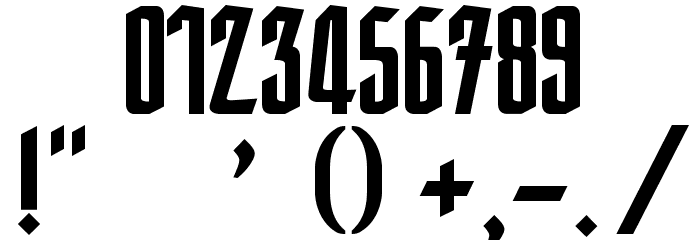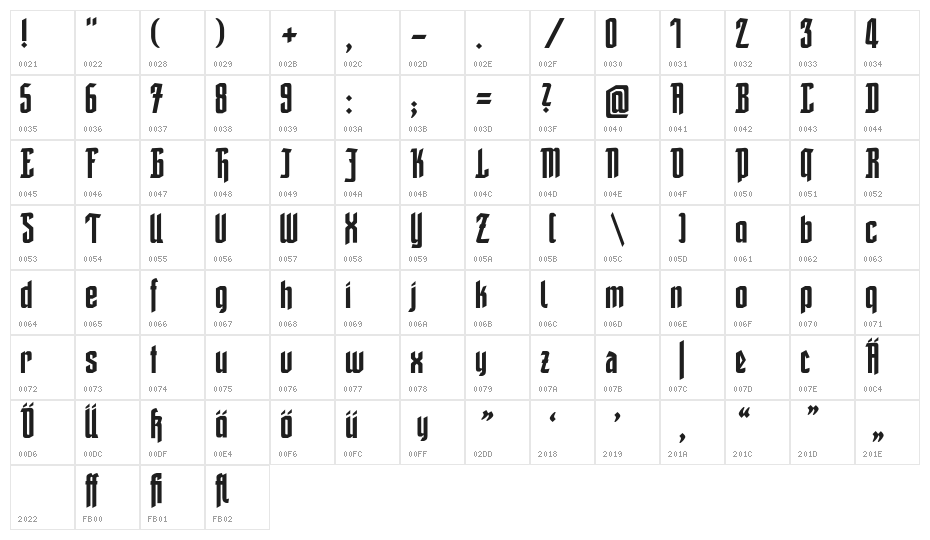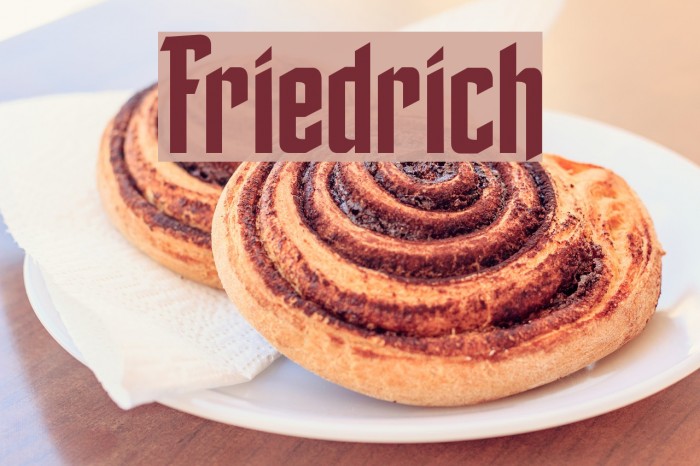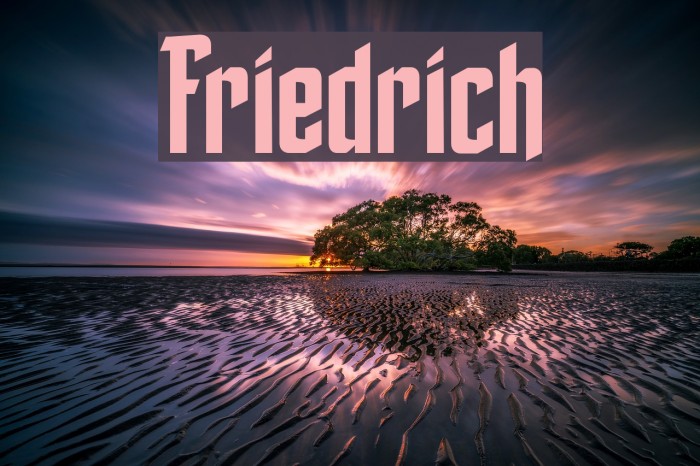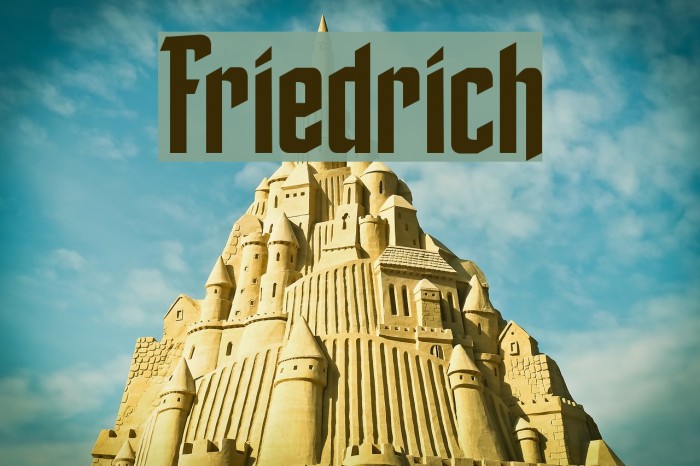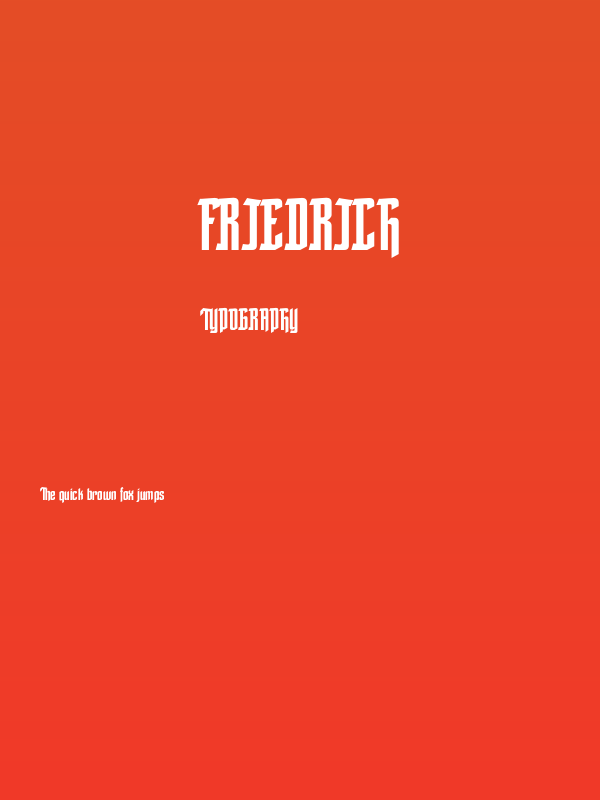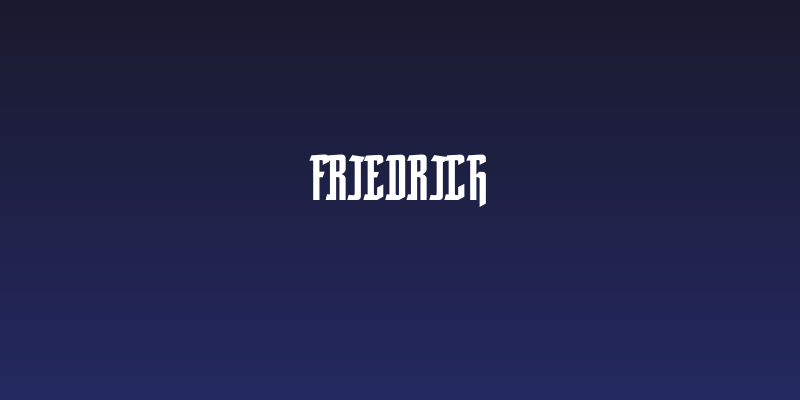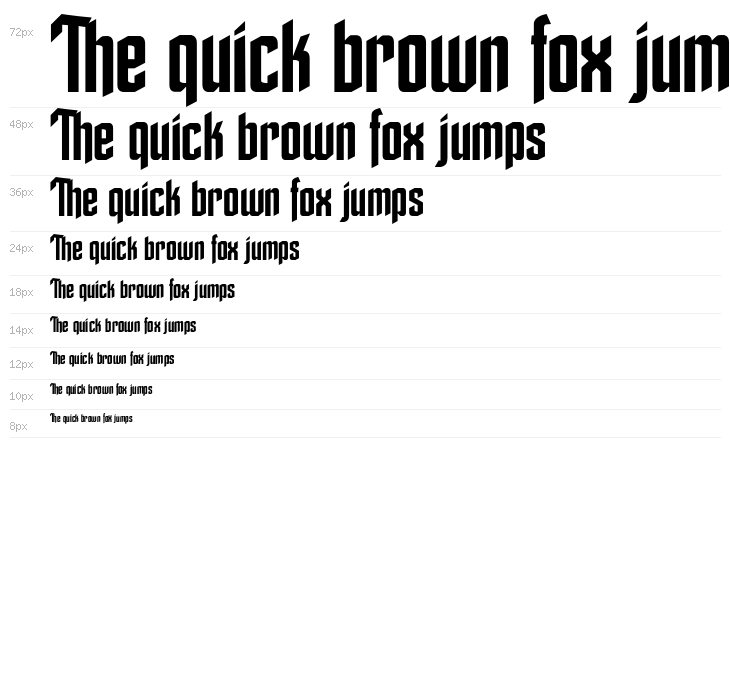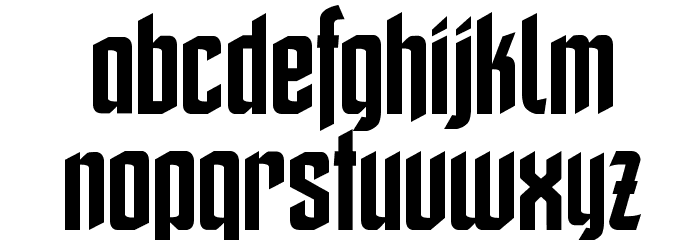
Friedrich Font
Friedrich Description
This font features a bold, angular design with a strong presence, reminiscent of traditional Blackletter styles. The uppercase letters are tall and narrow, with sharp, pointed edges that give a sense of authority and formality. The lowercase letters maintain a similar aesthetic, with consistent stroke widths and a slightly condensed appearance. Numbers and special characters are designed to match the overall style, ensuring a cohesive look across all text. The font's distinct character makes it suitable for impactful headlines and branding that requires a touch of historical elegance.